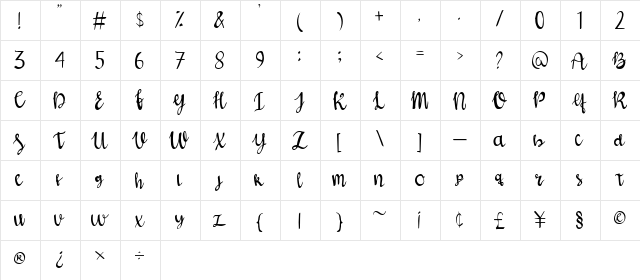
Shalihaa Regular
| Designer | Alfatih std 2020. |
Design Context for Shalihaa Typeface
Shalihaa is a composed and adaptable typeface that performs quietly and consistently across a wide range of design contexts.